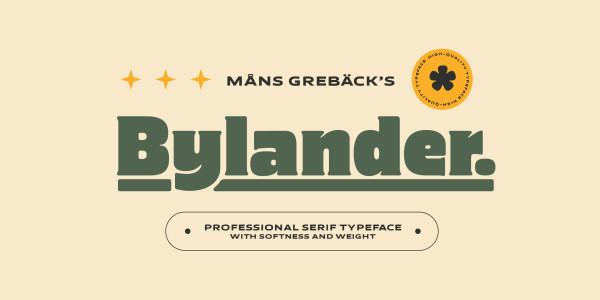
Bylander Font
Bylander Font is a stateful serif typeface. With robust, heavy letterforms reminiscent of a foundry’s hammer hitting molten metal, and an unpaired weight, Bylander’s characters seem forged from the core of the Earth.